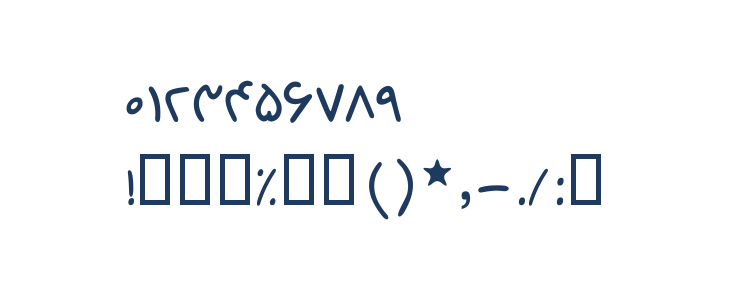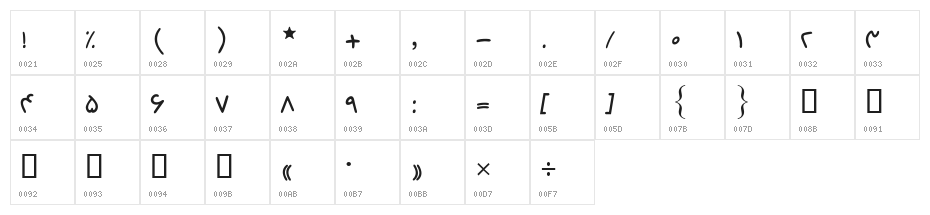
Destkhat Girl Black Font
Destkhat Girl Black Description
This font features a playful and whimsical style, characterized by its curvy and fluid letterforms. The characters have a hand-drawn appearance, giving them a unique and artistic flair. The numbers and special characters maintain this playful aesthetic, with varying stroke thickness that adds to the font's charm. The overall design is informal and friendly, making it suitable for creative and casual projects.
گالری فانت فارسی پژوهش آريانا - only compatible with Farsi and Arabic
| Use Case | Logos, Posters, Creative projects |
| Proposed Projects | Ideal for children's books, greeting cards, playful branding, and creative posters. |